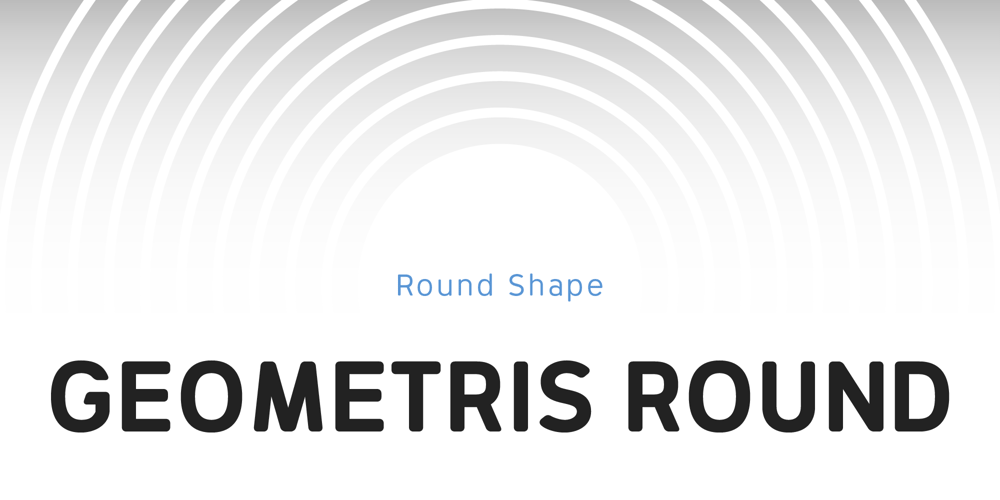
Geometris Round
Geometris Round font
Geometris Round Font Family was designed by Nikolay Savchuk and published by NicolassFonts. Geometris Round contains 12 styles and family package options. Geometris Round is a modern versatile sans-serif typeface. It is brilliantly suited for graphic design and display use and perfect for logotypes, t-shirts, packaging, brand identity, books, magazines, newspapers, posters, billboards, and advertising.